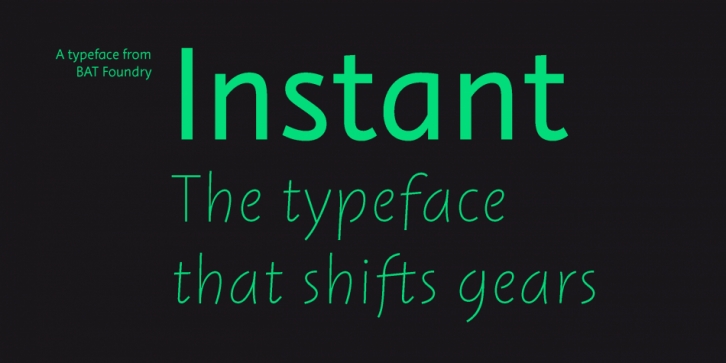
The typeface that shifts gears
Since its origins, typography has been closely related to the handwriting from which it originates. The quicker we write, the more the writing is done without raising our hand; typographic shapes derived from this action are known as “cursiveâ€. So, why not imagine the opposite: that the shapes decomposed into several strokes represent a slower execution speed? This is the path Jérôme Knebusch took in the creation of Instant.
Naturally, speed produces light marks on the paper, while a slower pace results in a heavier mark. This is the spirit behind Instant, a family in which each member is defined by a speed, which in return lends it both shape and weight: Instant Vivid, Instant Quick, Instant Regular, Instant Slow, Instant Heavy. Instant Vivid encapsulates handwriting, animated by a vivacious motion, while Instant Heavy is a sans serif, with robust and reassuring forms. Each weight is an intermediate step which allows the passage from one extreme to another.
Instant calls into question some established practices of typography. The semantic purpose traditionally assigned to italic – usually emphasizing a language element – is only possible by juxtaposing contrasting weights. On the other hand, Instant lets modern typographers rediscover italic’s first purpose, which was conceived as a design in itself, chosen for its own qualities. A wealth of expressiveness is at the heart of this family, allowing the user to stage a variety of connotations within a single text.
Typographic research project par excellence, Jérôme Knebusch designed Instant at Atelier national de recherche typographique, starting in 2005. It received the careful support of Hans-Jürg Hunziker.